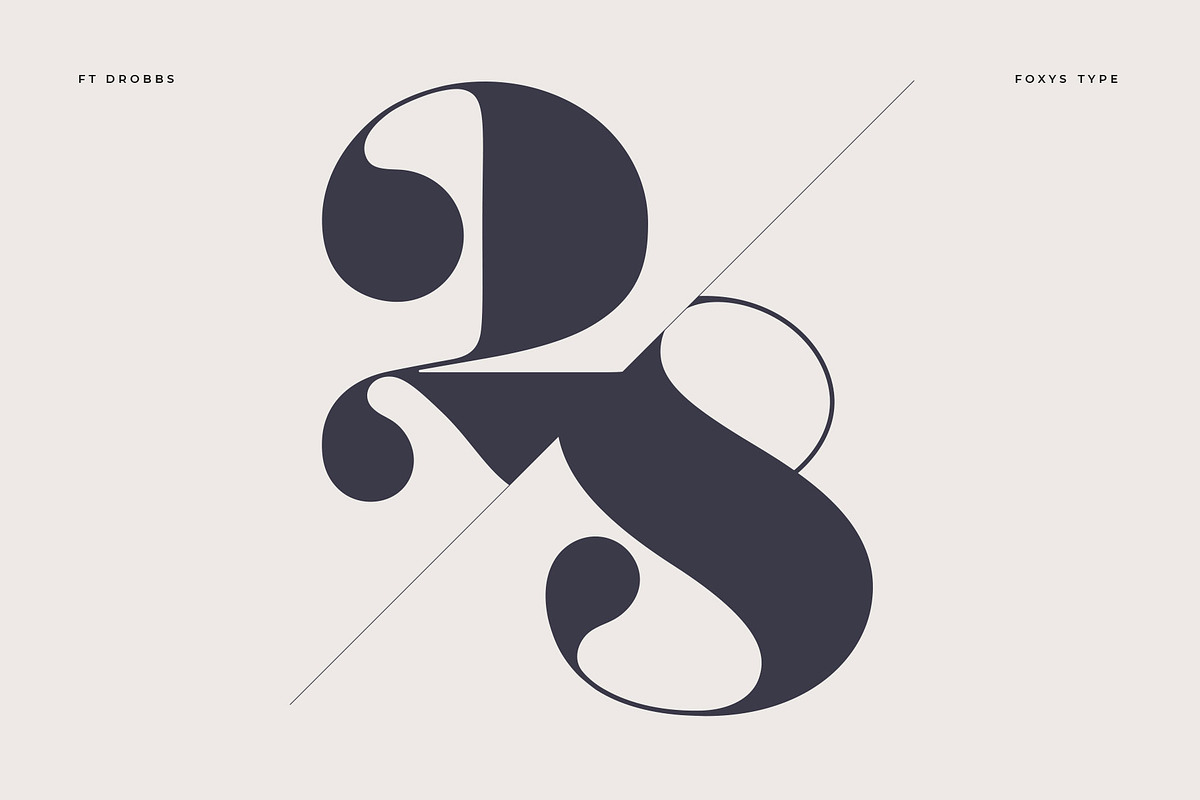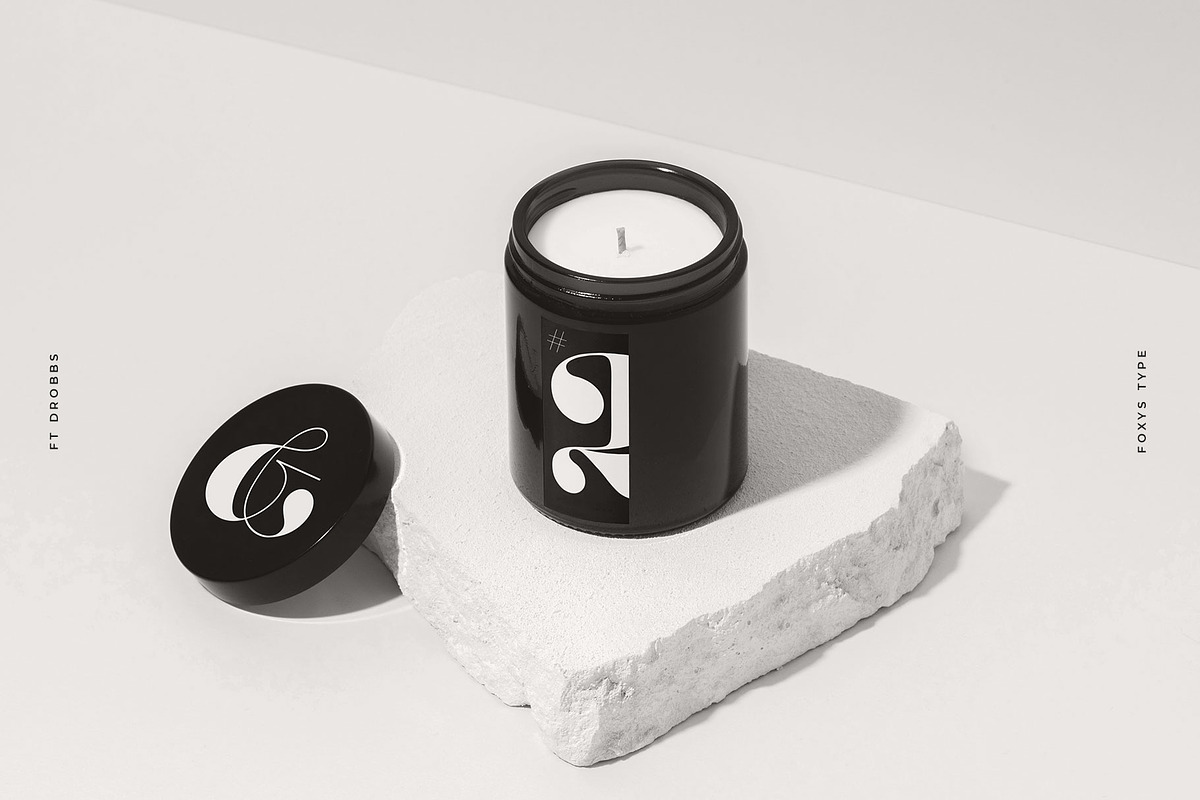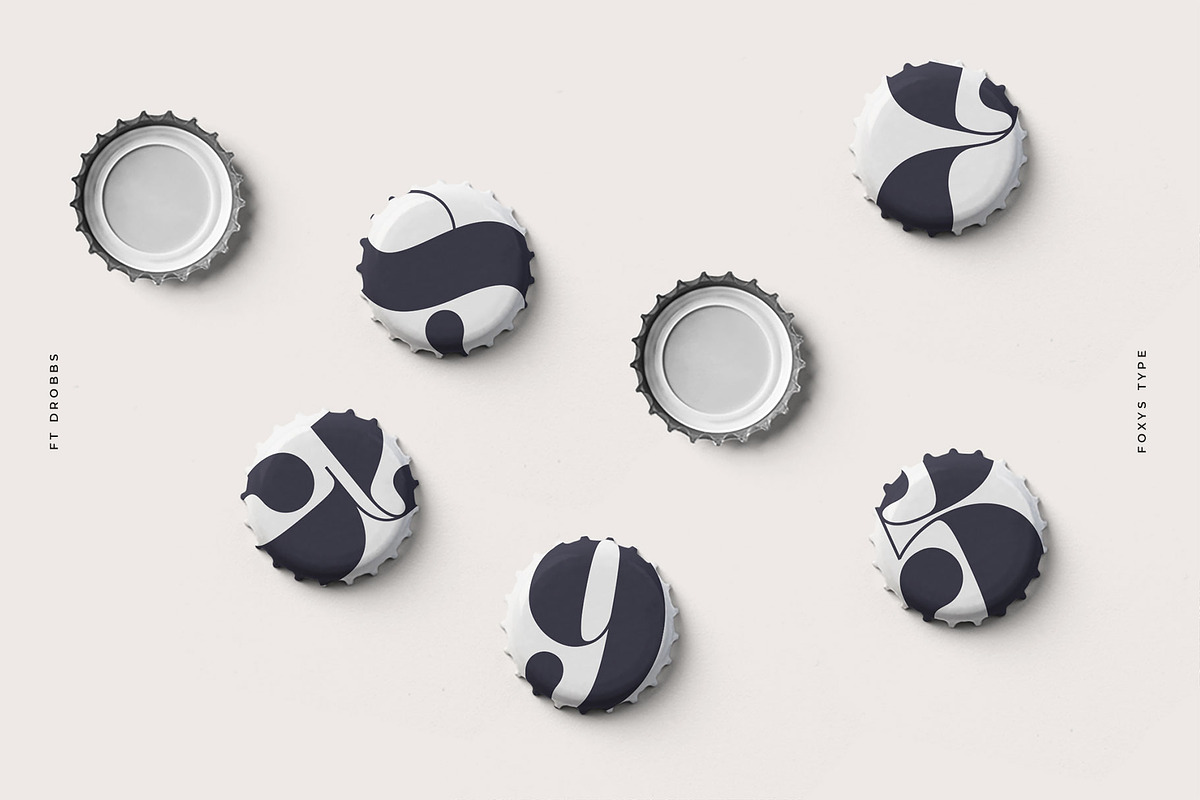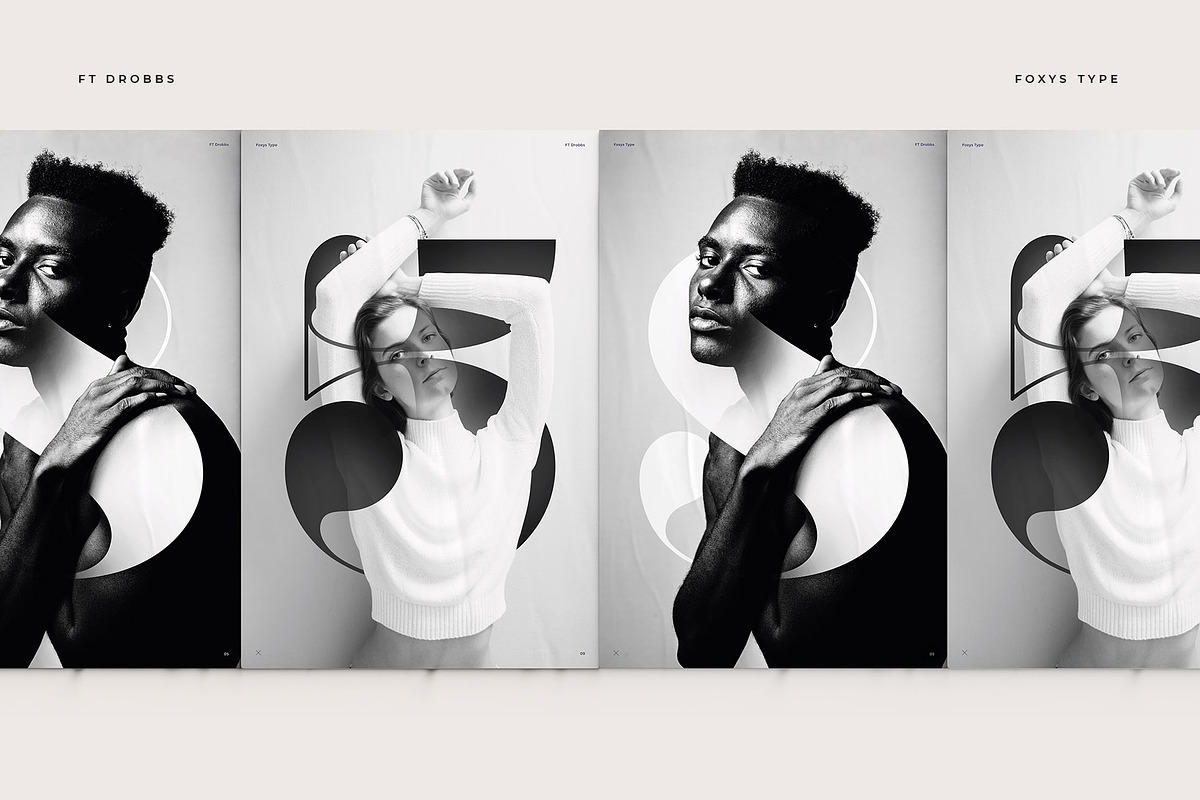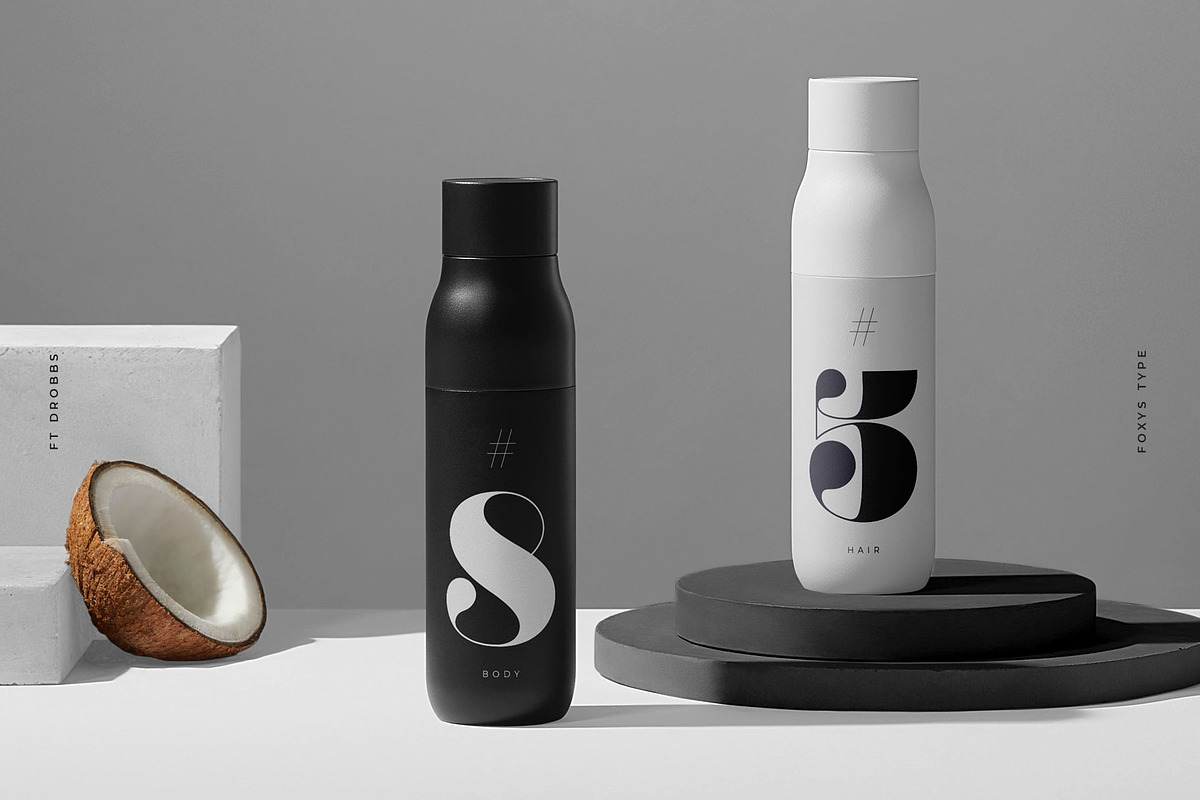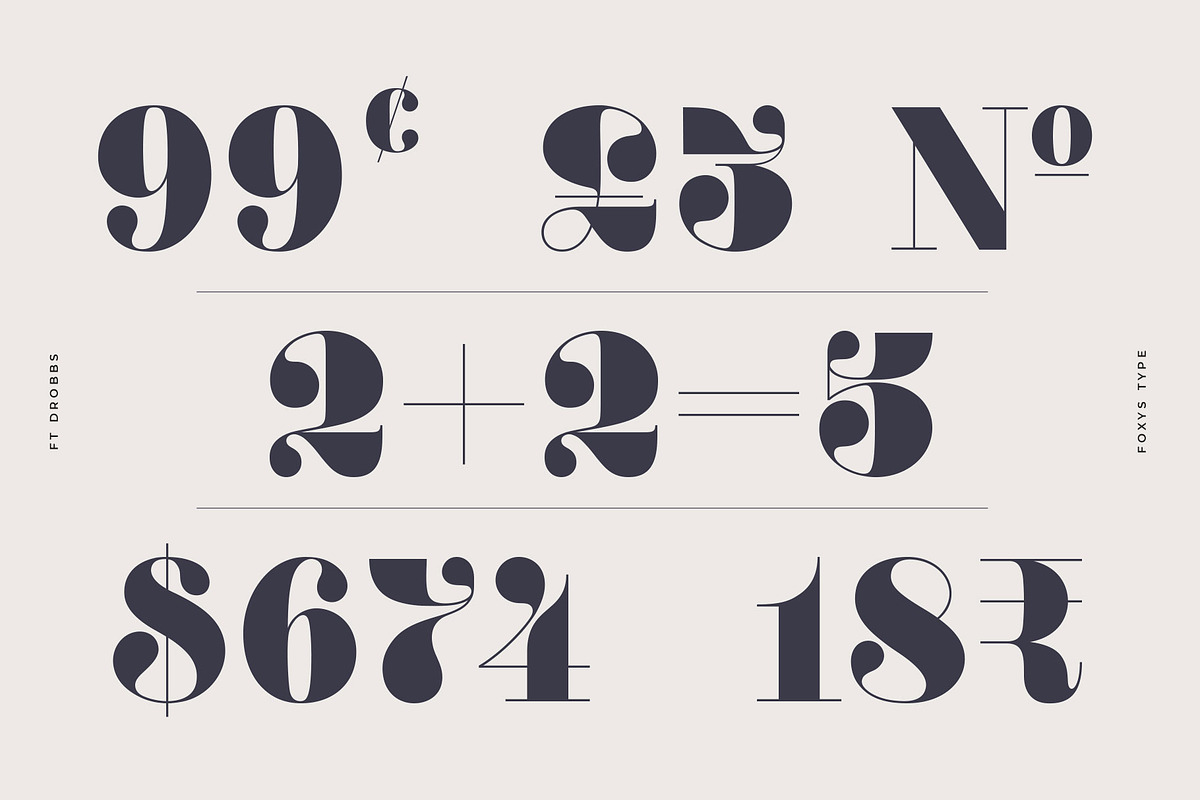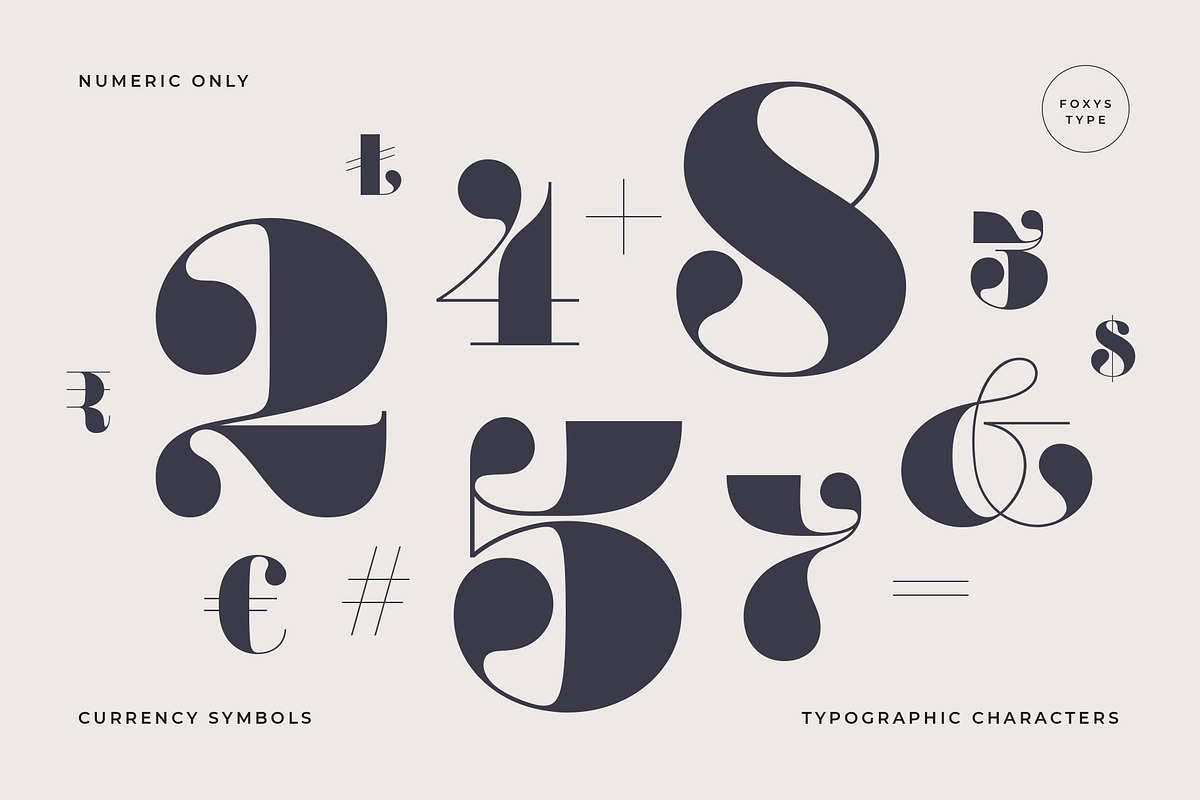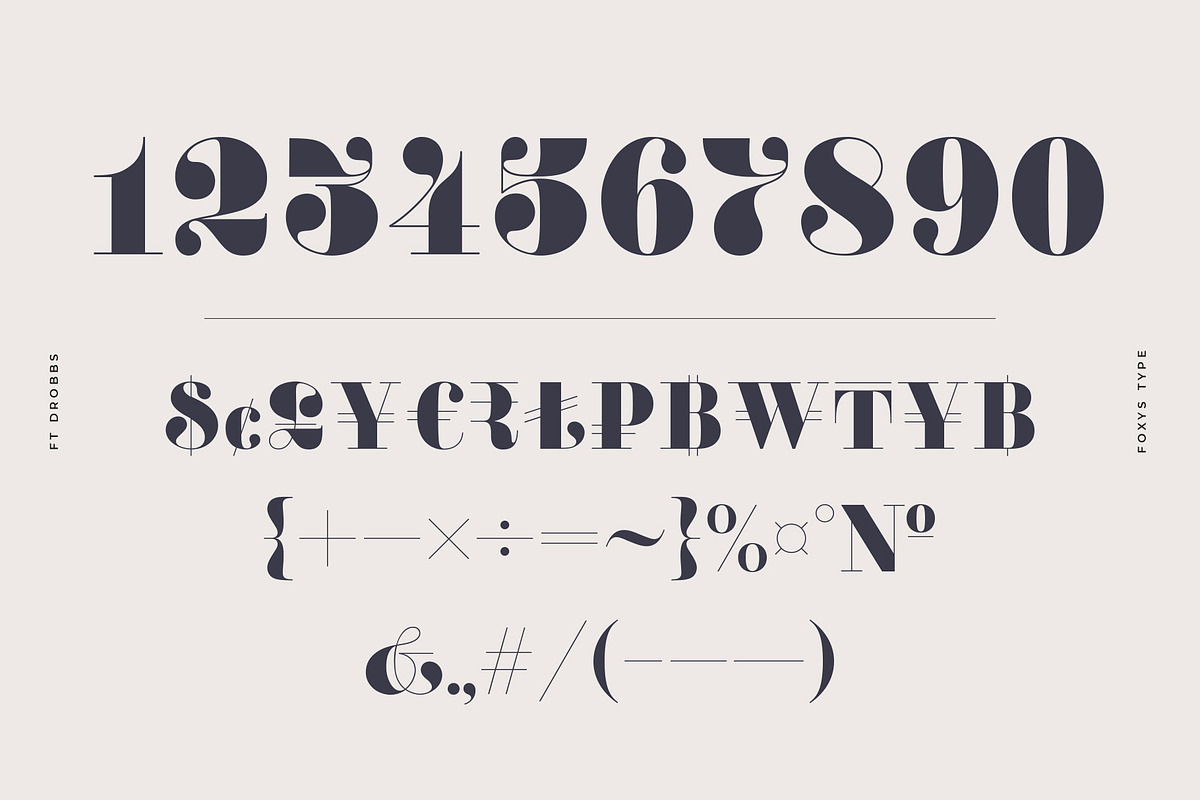
Drobbs
Drobbs is a numeric-only font. It is not alphabetic and contains digits, a set of basic currency symbols, and a set of typographic characters. It is used for accents in labels, posters, and infographics.
It is inspired by the Didot font group, known for its neoclassical style reminiscent of the Age of Enlightenment. The font includes a combination of very narrow and very wide lines and features increased contrast between them, along with teardrop-shaped endings. It is interesting to observe how the lines bend, move, expand, or sink into hairline thickness, showing a graceful, flowing quality.
Drobbs is not alphabetic, but it contains digits, a set of basic currency symbols, and a limited set of typographic characters. It is suitable for use as accents in labels, posters, and infographics.